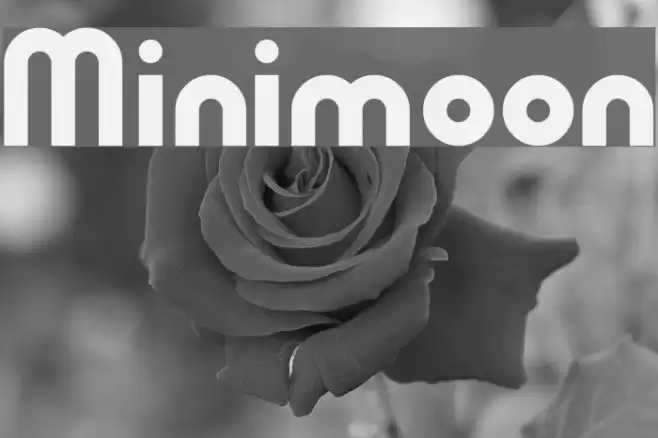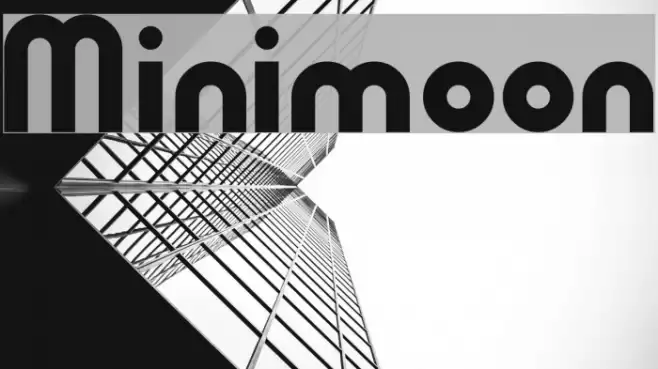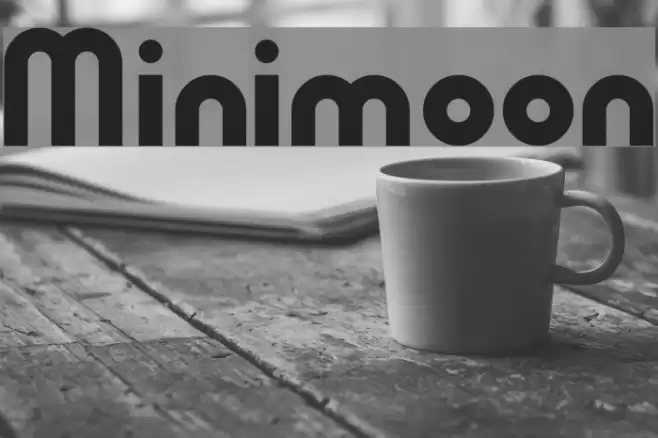
Minimoon Font
Minimoon Description
This font exhibits a bold and playful design with rounded edges and a geometric structure. The uppercase letters are uniform in height, creating a cohesive look, while the lowercase letters maintain a similar width, enhancing readability. The numbers are consistent with the letterforms, featuring the same rounded and bold characteristics. Special characters are well-integrated, maintaining the overall style. The font's design is modern and approachable, making it suitable for a variety of creative projects.
A bold, rounded, and geometric font with a playful and modern style from Fancy fonts.
- Proposed Projects: Ideal for branding, packaging, children's books, and playful advertising campaigns.